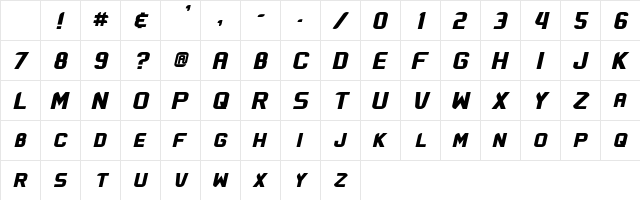
Complete Flatwheat Regular glyph index. Displaying only characters natively supported by Flatwheat Regular font.
Flatwheat is a composed and adaptable typeface that performs quietly and consistently across a wide range of design contexts.